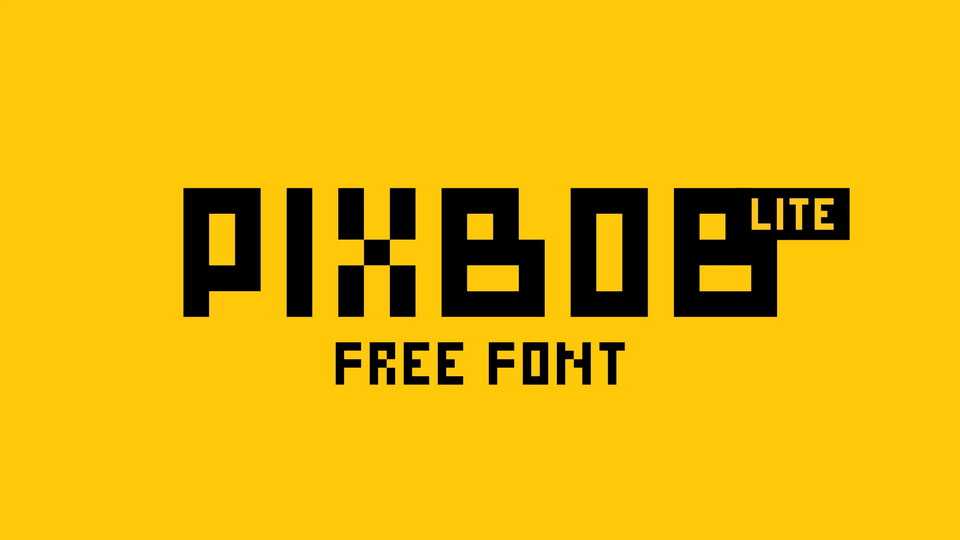
Download Pixbob Lite font, a typeface that designed special for pixel art. Pixbob font is designed cleanly and precisely so it’s easy to read, looks elegant and easy to apply to your pixel project.
Designer: Habib Khoirul Fajar